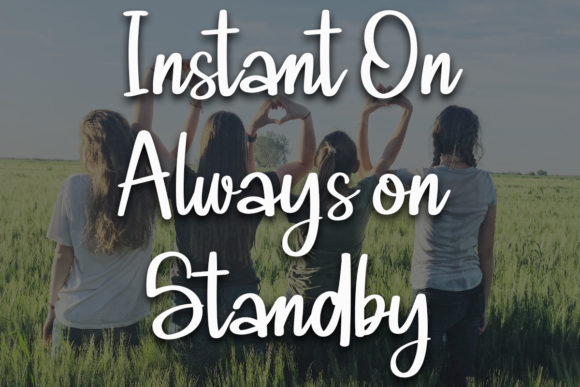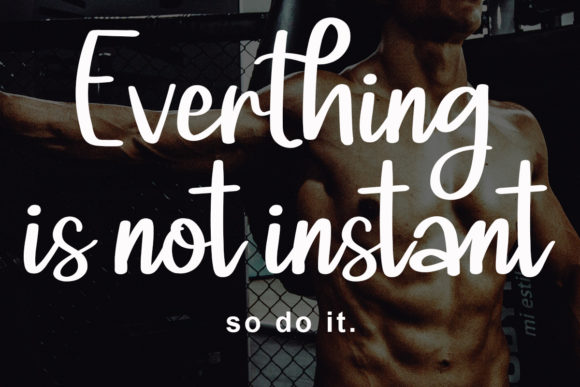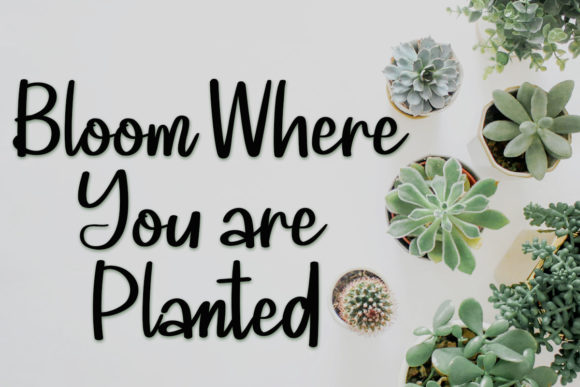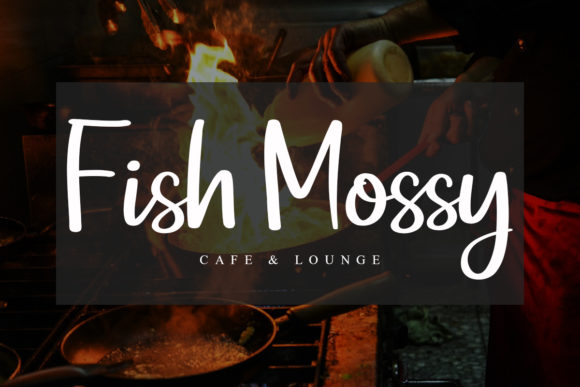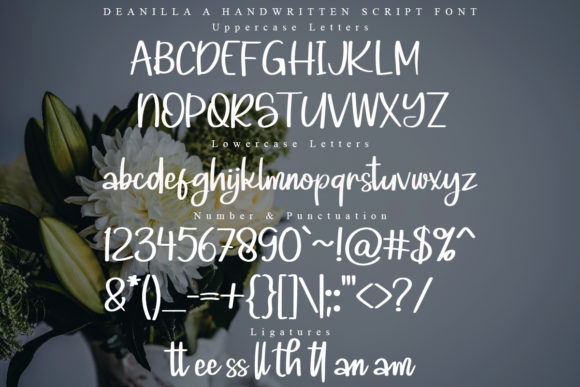
Introducing Deanilla Font: Elevate Your Creativity with this Stunning Handwritten Script
Are you a designer, crafter, or creative enthusiast looking for a font that can take your projects to the next level? Look no further than Deanilla Font, a beautiful and flowing handwritten script that is sure to become your new favorite. Created with the help of a pen brush, Deanilla boasts a unique and elegant style that can add a touch of sophistication to any design.
The Story Behind Deanilla Font
Deanilla Font is a masterfully designed font that has been crafted with love and care to bring out the best in your creative ideas. Its flowing lines and curves are reminiscent of handwritten scripts, but with a level of precision and consistency that makes it perfect for use in a wide range of applications. Whether you’re designing a logo, creating a social media graphic, or crafting a beautiful wedding invitation, Deanilla Font is the perfect choice.
What Makes Deanilla Font So Special?
So, what sets Deanilla Font apart from other fonts out there? Here are just a few of its standout features:
- Unique and Elegant Style: Deanilla Font has a distinctive and sophisticated style that is sure to turn heads. Its flowing lines and curves give it a beautiful, handwritten feel that is perfect for adding a touch of elegance to any design.
- Highly Versatile: Whether you’re designing a logo, creating a social media graphic, or crafting a beautiful wedding invitation, Deanilla Font is the perfect choice. Its versatility makes it suitable for use in a wide range of applications.
- Easy to Read: Despite its elegant and flowing style, Deanilla Font is incredibly easy to read. This makes it perfect for use in body text, as well as headings and titles.
- Perfect for Branding: With its unique and memorable style, Deanilla Font is perfect for use in branding and advertising. It’s sure to help your brand stand out from the crowd and leave a lasting impression on your customers.
How to Use Deanilla Font in Your Designs
Using Deanilla Font in your designs is easy! Here are a few tips to get you started:
- Pair it with Other Fonts: Deanilla Font pairs perfectly with other fonts, such as sans-serif fonts like Arial or Helvetica. Try pairing it with a bold font for a striking contrast.
- Experiment with Colors: Deanilla Font looks great in a wide range of colors, from bold and bright to soft and pastel. Experiment with different colors to find the perfect look for your design.
- Use it for Headings and Titles: Deanilla Font is perfect for use in headings and titles, where its elegant and flowing style can really shine.
In conclusion, Deanilla Font is a beautiful and flowing handwritten script that is sure to become a favorite among designers and crafters. Its unique and elegant style, versatility, and ease of use make it perfect for a wide range of applications, from branding and advertising to crafting and DIY projects. So why not give it a try and see how it can elevate your creativity to the next level?